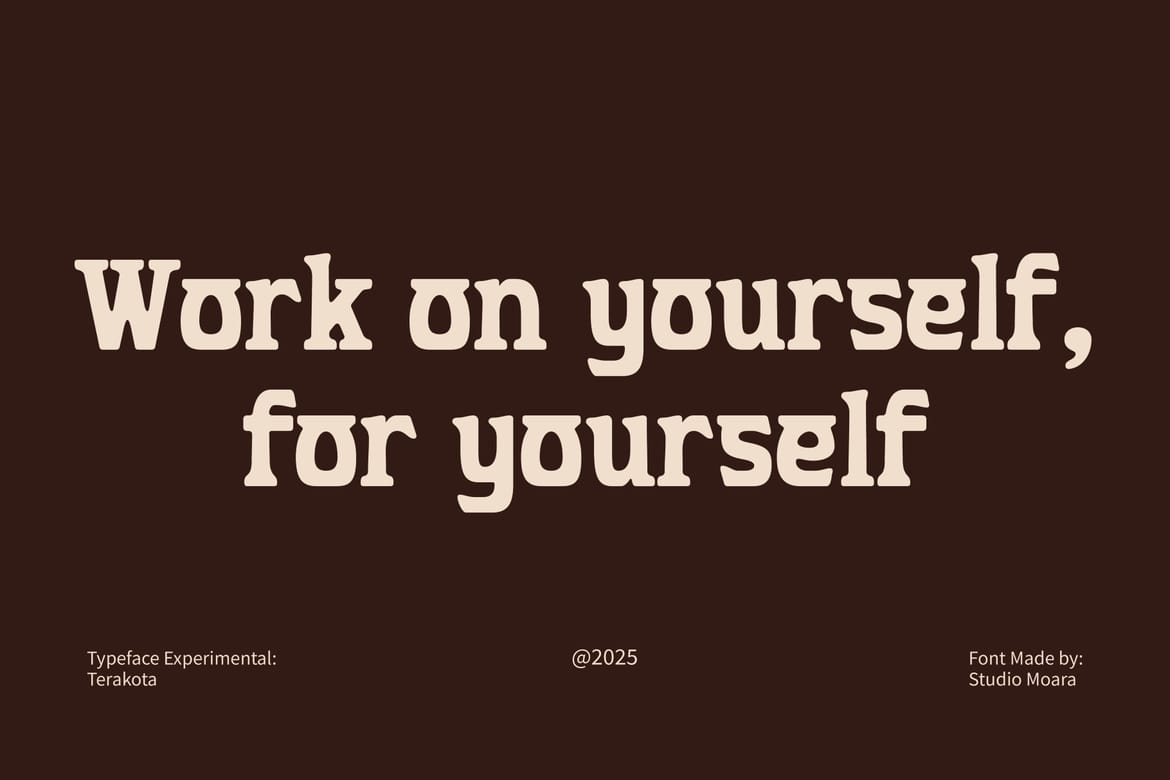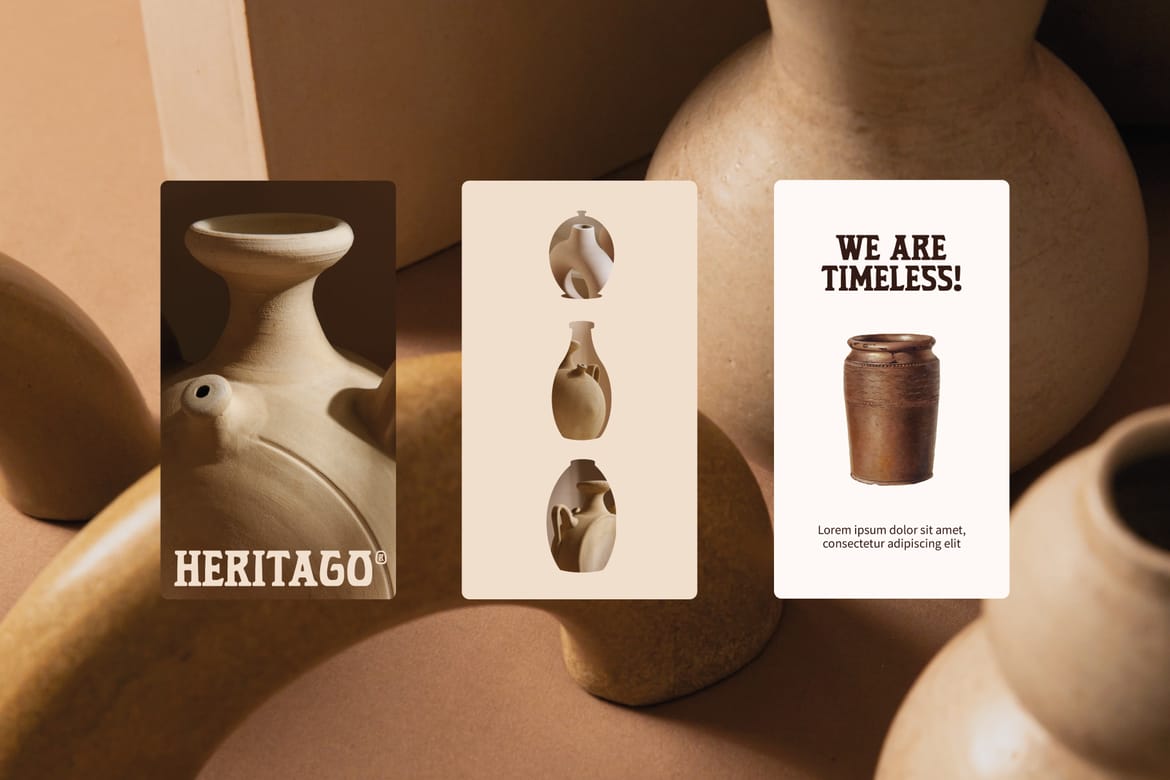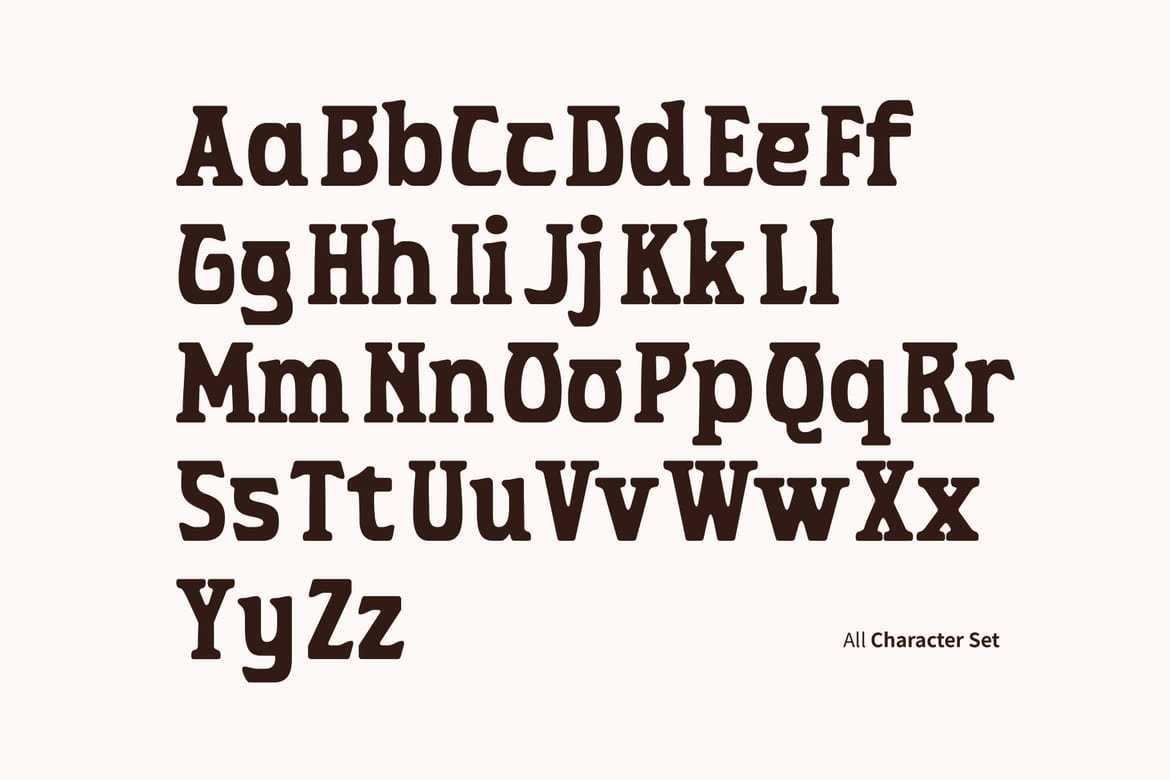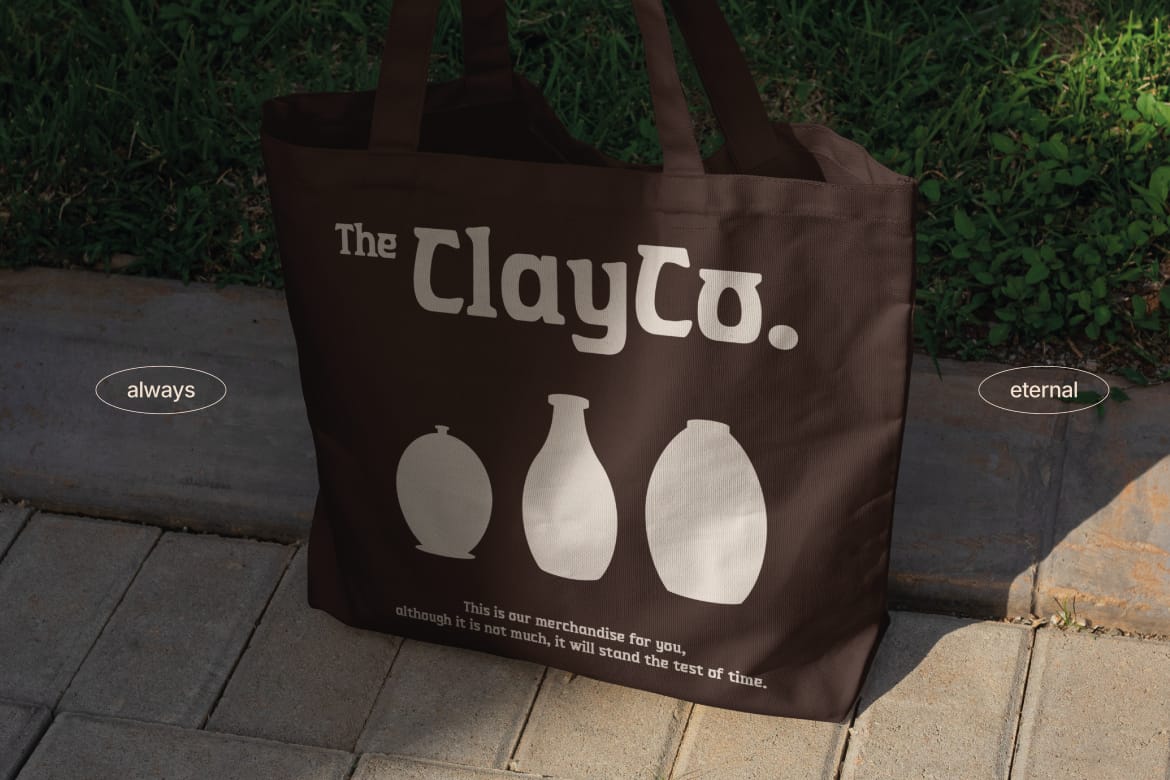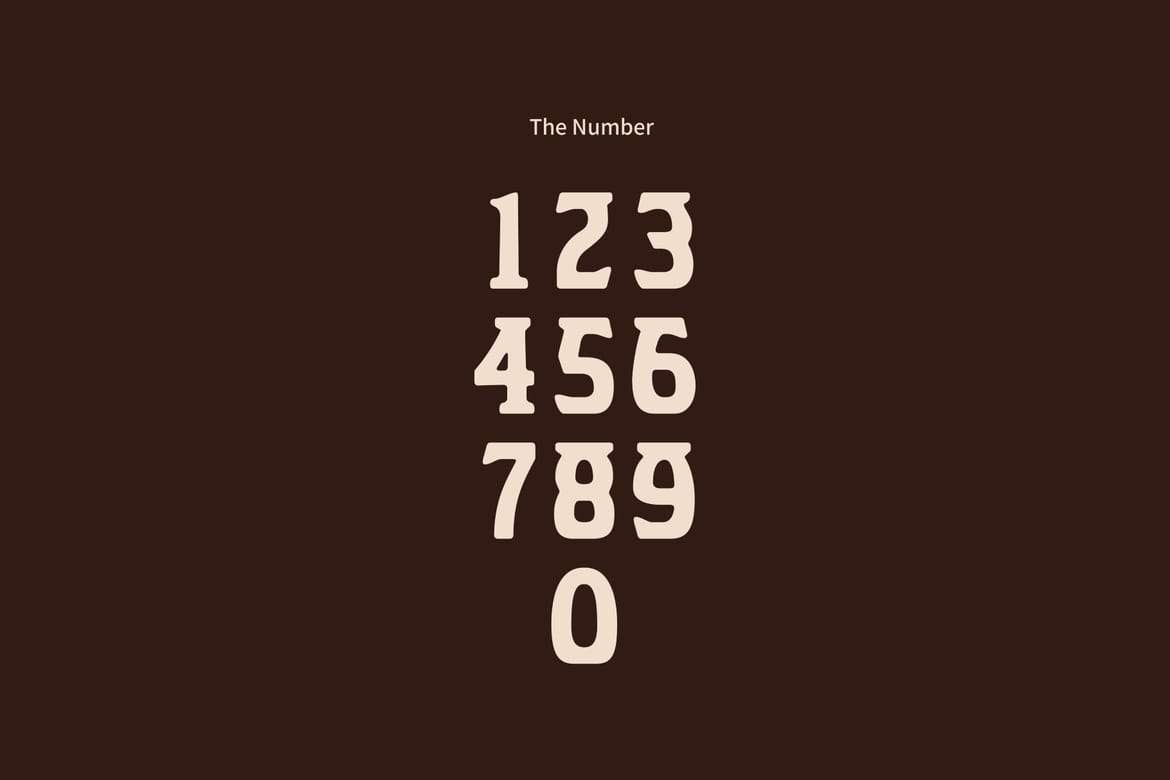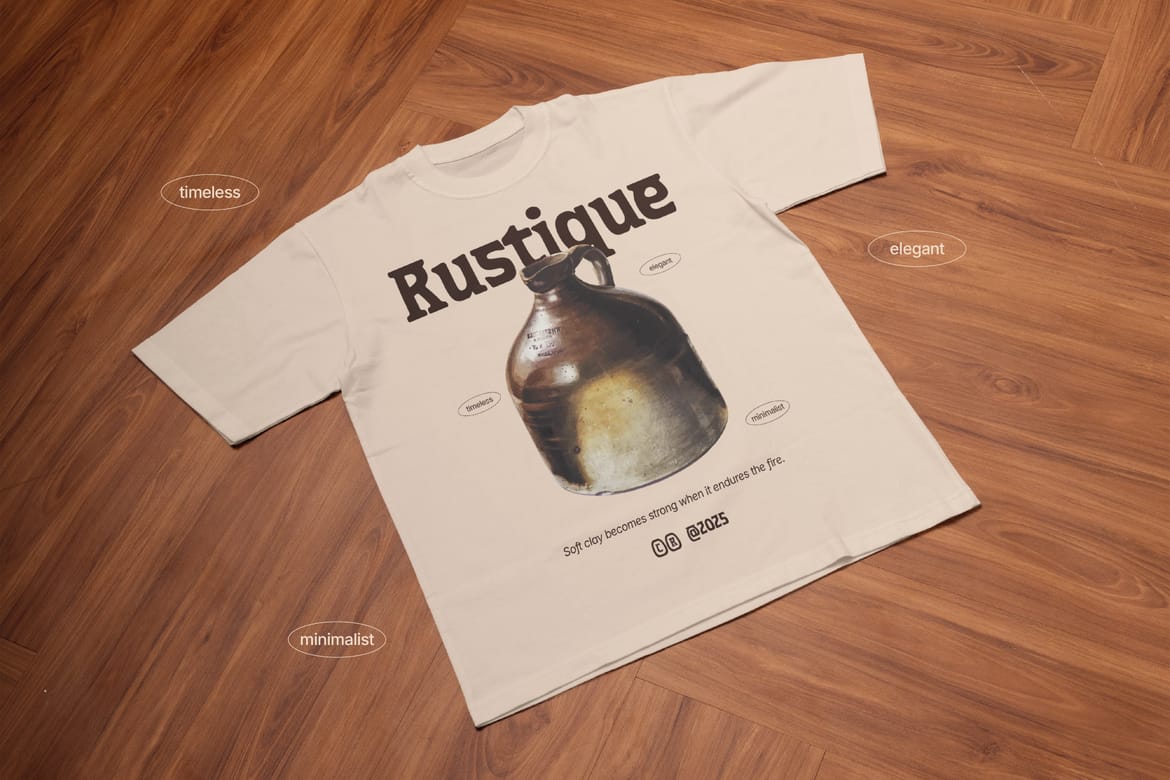
Terakota is a bold sans-serif display font inspired by earthy aesthetics and timeless craftsmanship. With strong, rounded serifs and a warm, vintage feel, it brings a handcrafted touch to any project. Perfect for branding, packaging, posters, and editorial designs, Terakota blends rustic charm with modern readability. Its sturdy letterforms and organic curves evoke the texture of clay and pottery, making it ideal for artisanal, bohemian, and retro themes. Elevate your designs with Terakota’s bold yet elegant character!